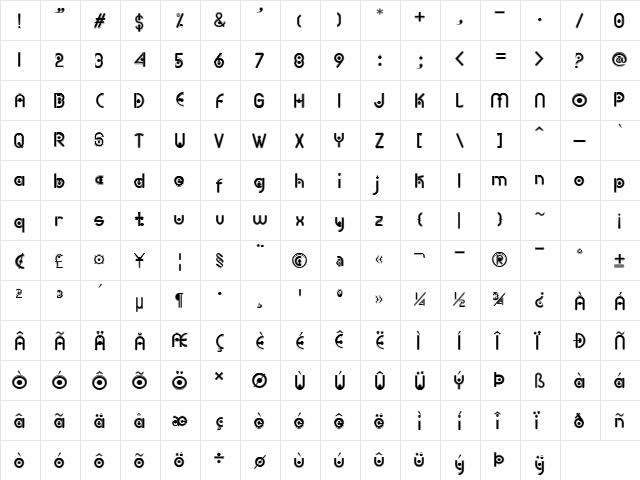
Rollstone Outline Regular
| Designer | Aris DPU |
Design Context for Rollstone Outline Typeface
Rollstone Outline brings ornamental detail and strong personality to headlines and identities, where visual impact matters more than quiet functionality.
Font Pairing: Pair with a clean neutral sans-serif for body copy to let Rollstone Outline's character lead without overwhelming the composition.
Pro Tip: Treat Rollstone Outline as the centrepiece of your typographic hierarchy. One strong heading set in a decorative face can carry an entire layout.